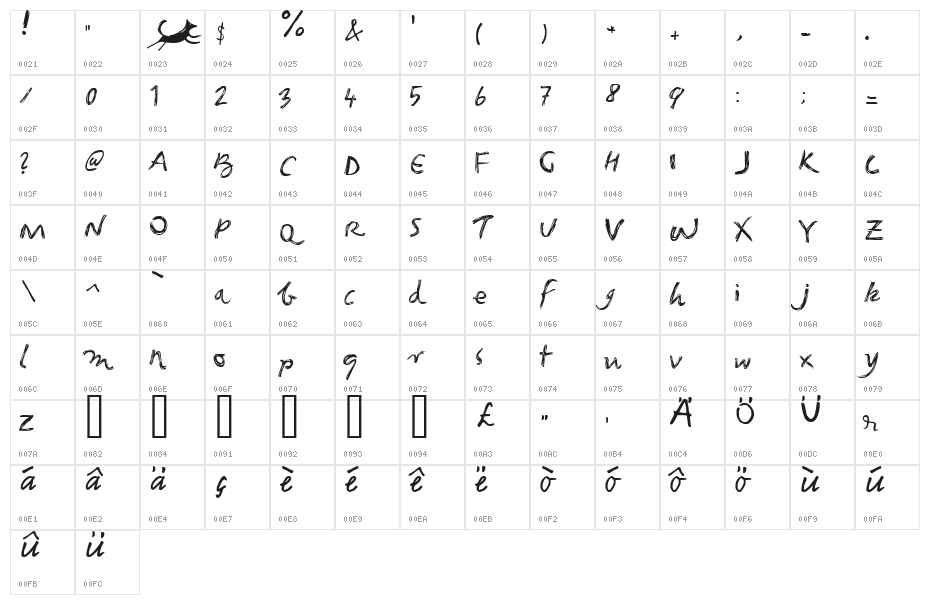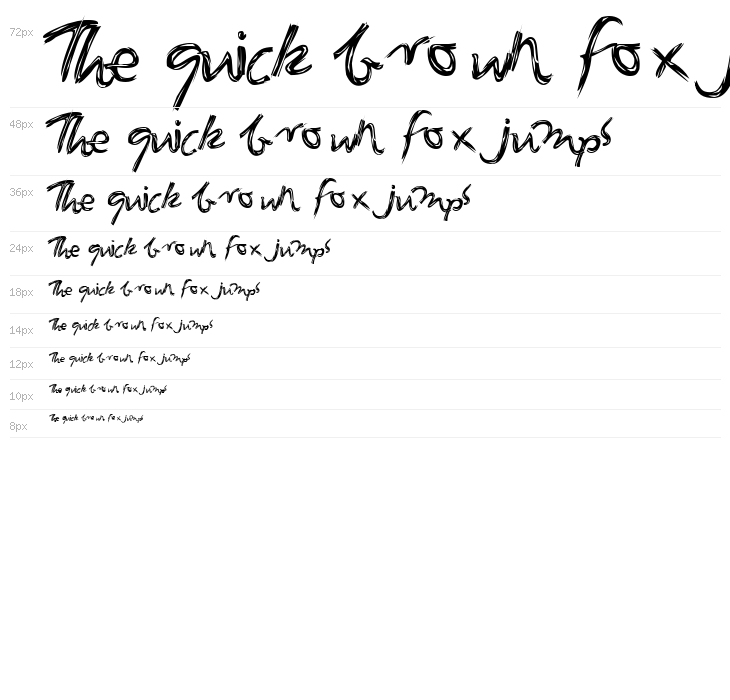
Foxgrunge Font
| النمط العام | Grunge, Energetic, Rebellious |
| حالة الاستخدام | Headlines, Posters, Branding |
| مشاريع مقترحة | Ideal for music album covers, edgy posters, streetwear branding, and any project needing a bold, rebellious touch. |